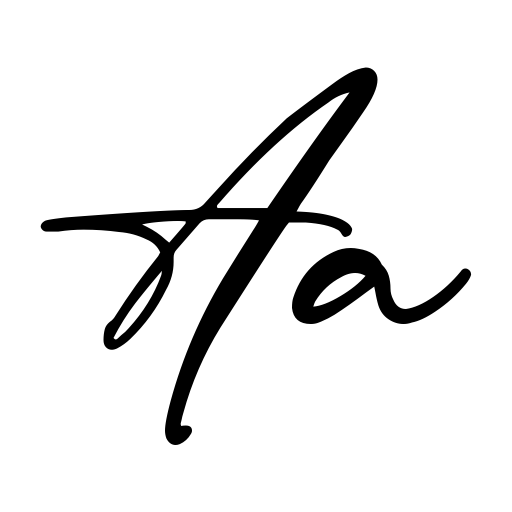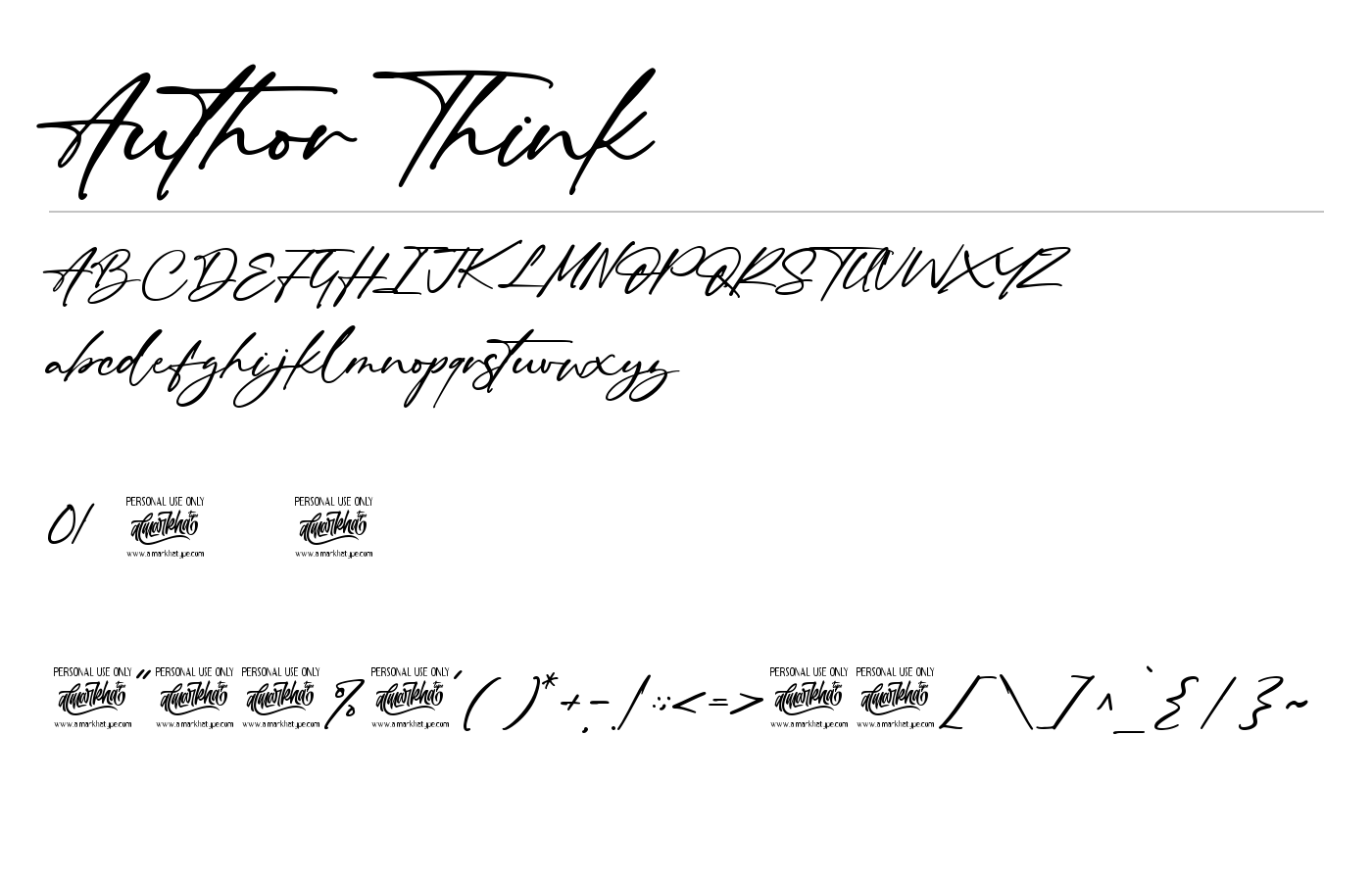
Author Think is an elegant, handwritten script font with a fluid and expressive style that mimics natural cursive handwriting. It features slender, flowing letterforms with smooth, dynamic strokes and a slightly casual yet refined feel, making it ideal for creative branding, personal logos, invitations, and other designs that seek a personal and artistic touch. This font works best where a sophisticated, approachable, and unique personality is desired.
Author Think Font
About Author Think Font
| Designer | Almarkhatype Studio 2021 - Abdul Malik - Ghazi |